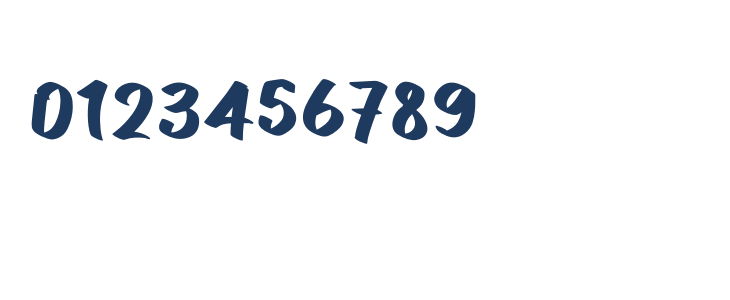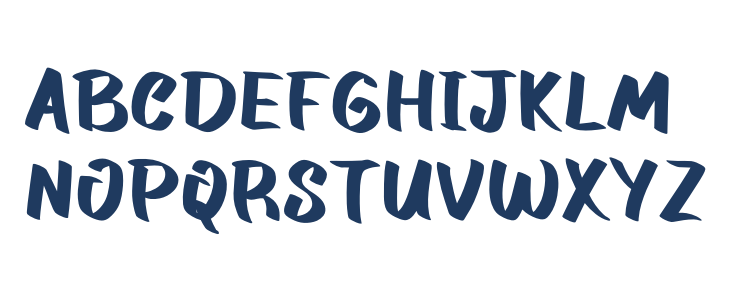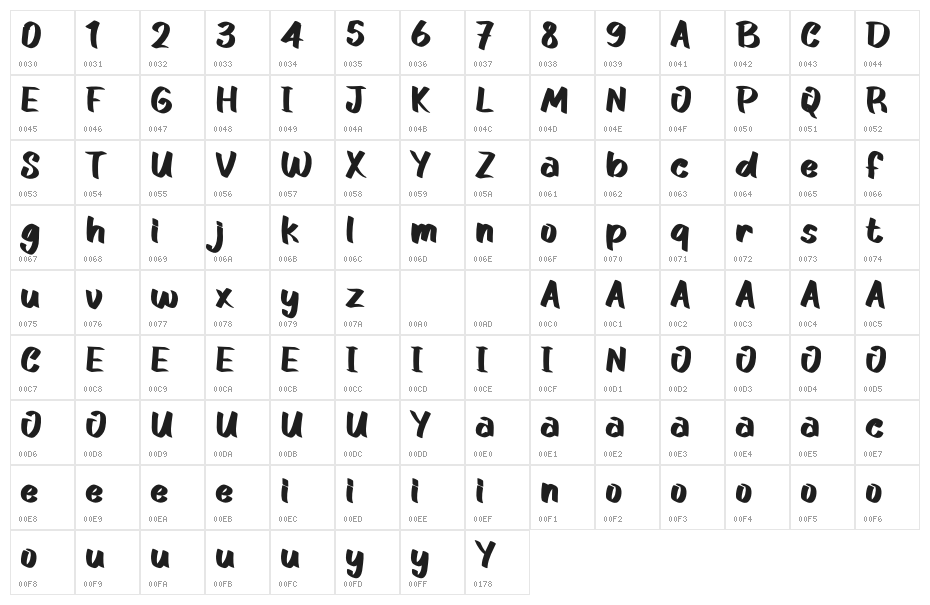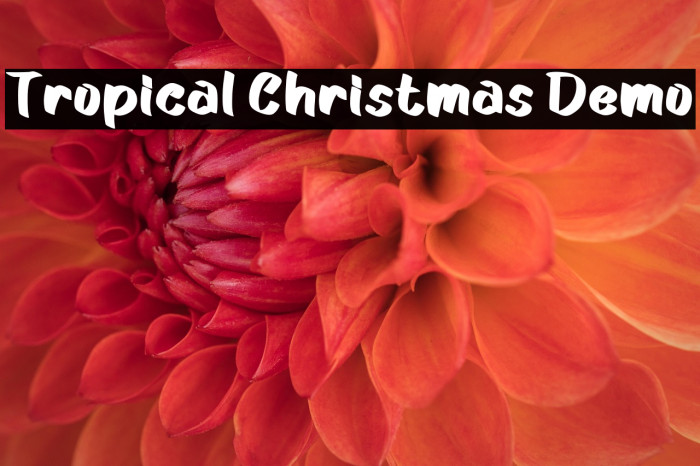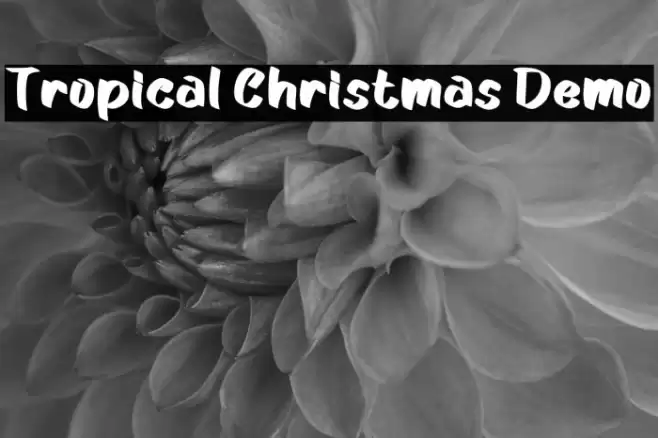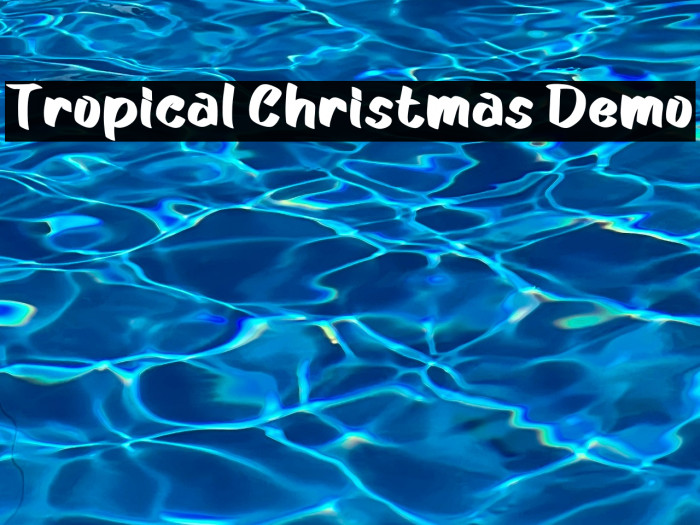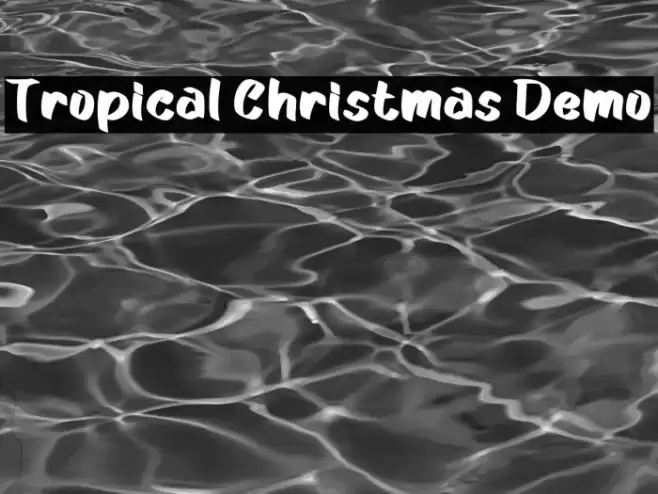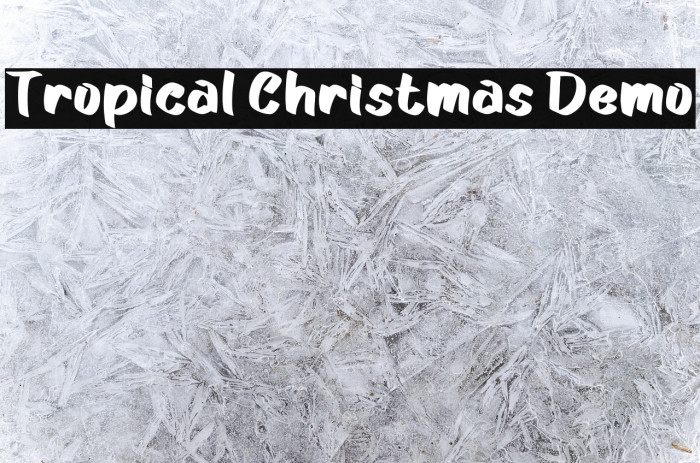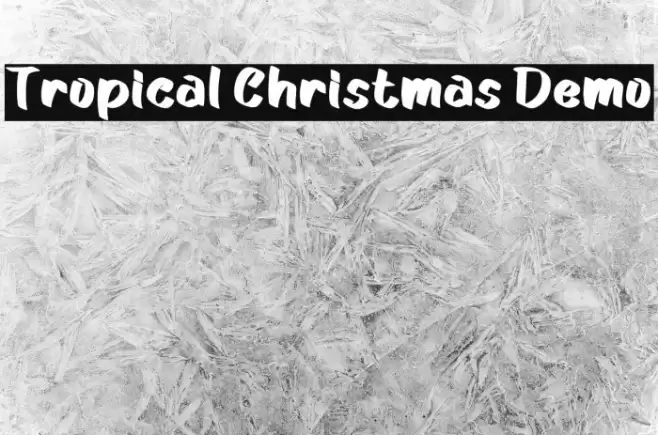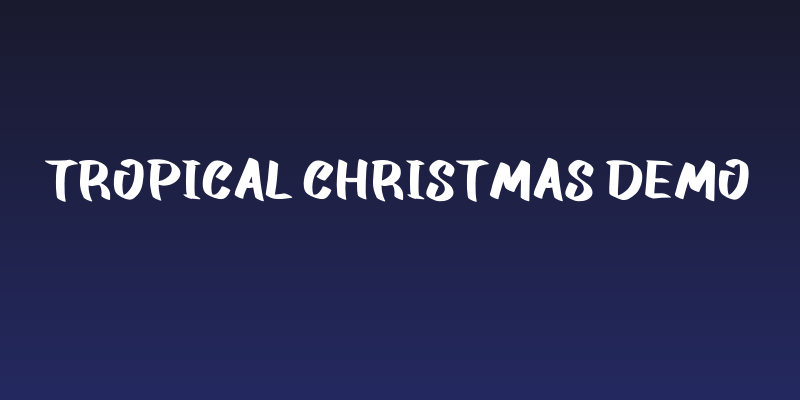
Tropical Christmas Demo Font
Tropical Christmas Demo Description
| Overall Style | Decorative, Festive, Playful |
| Use Case | Headlines, Posters, Greeting cards, Logos |
| Proposed Projects | Holiday cards, party invitations, event posters, branding for tropical or festive themes. |